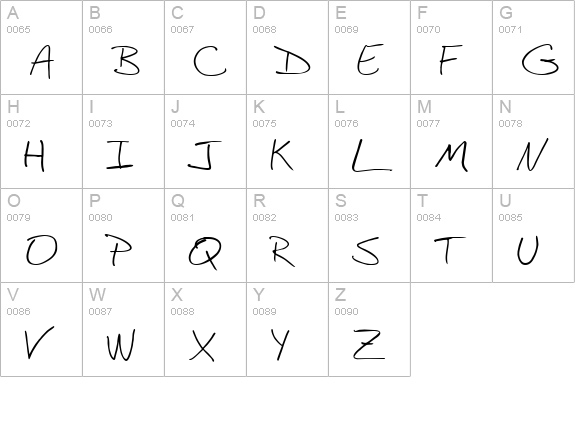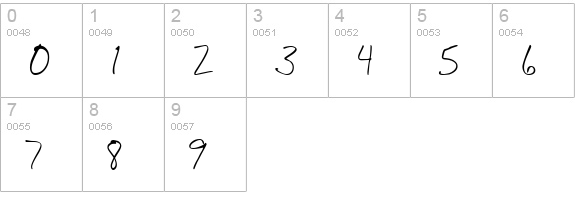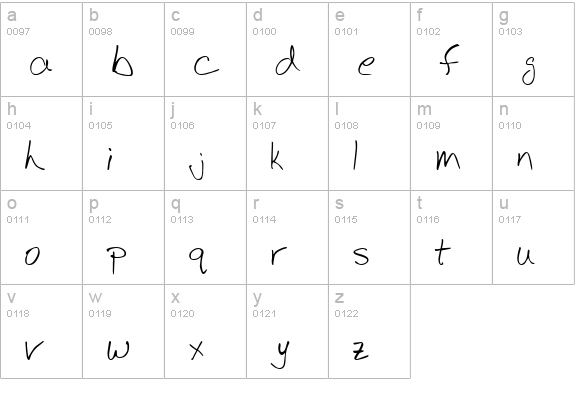
Bud Hand 1A font is a charming and playful handwritten font that brings a touch of whimsy to any design project. With its irregular strokes and quirky details, this font is perfect for adding a personal and unique touch to your creations. Whether you're designing greeting cards, logos, or social media graphics, Bud Hand 1A font is sure to stand out. The best part? Bud Hand 1A font is completely free to download at FontsMarket.com. That's right, you can enhance your designs with this delightful font without spending a dime. So why wait? Add a touch of fun and creativity to your projects with Bud Hand 1A font today!